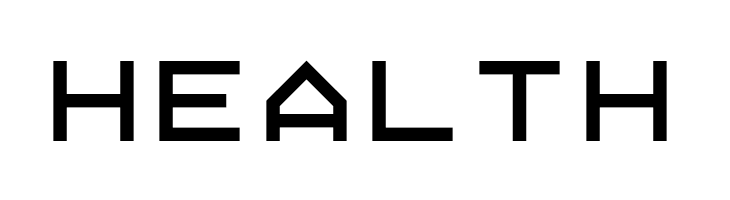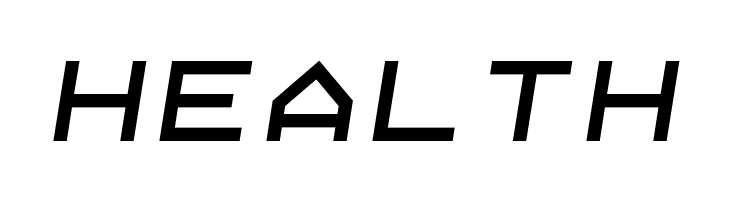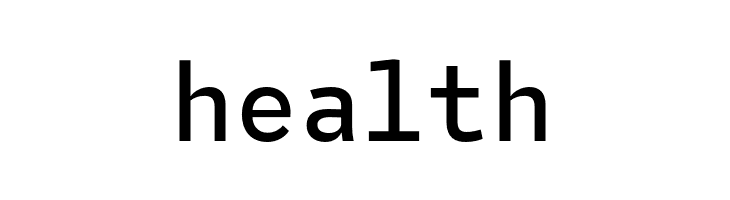
A monospaced, italic font with a modern and clean design.
A clean, geometric monospaced font with consistent character width.
A modern, monospaced font with geometric shapes and rounded edges.
A modern, monospaced italic font with consistent spacing and clear characters.
A bold, monospaced font with a clean, modern design and uniform spacing.
A clean, modern monospaced font with uniform character width and minimalist design.
A clean, modern monospaced font with uniform character width.
A clean, modern monospaced font with uniform character width and minimalist design.
A thin, monospaced font with a minimalist and modern design.
A modern, monospaced font with a clean and minimalist design.